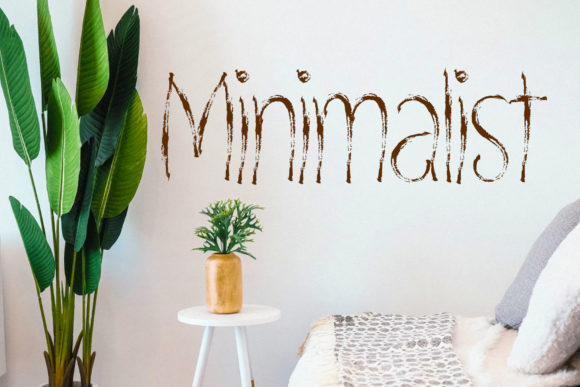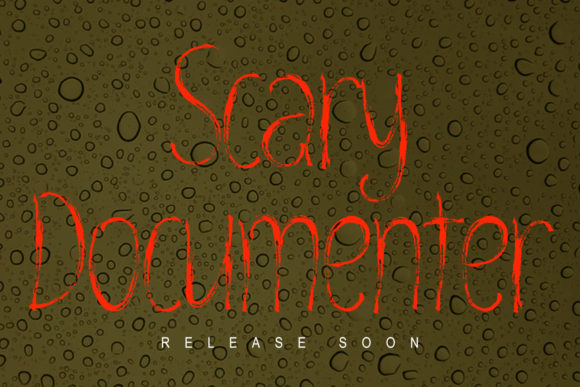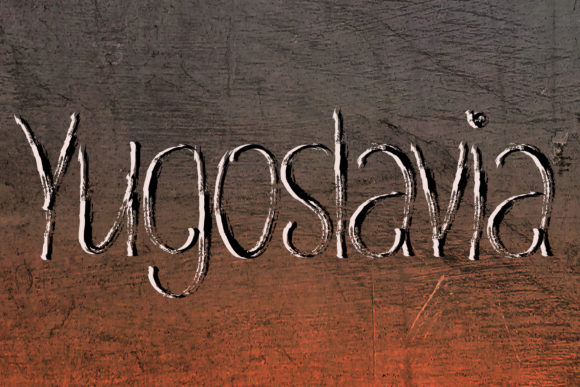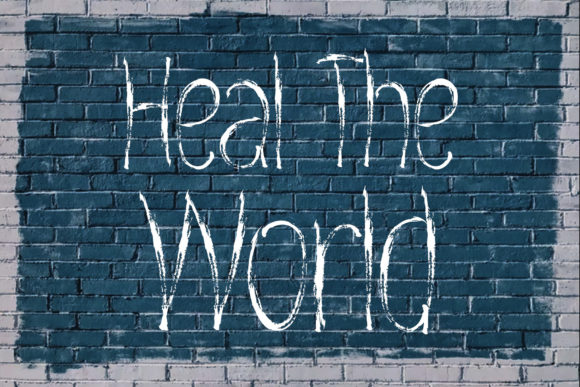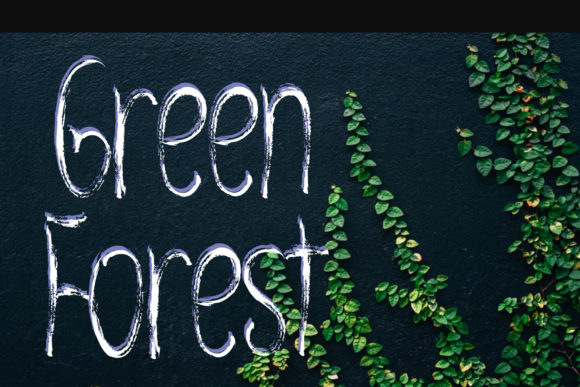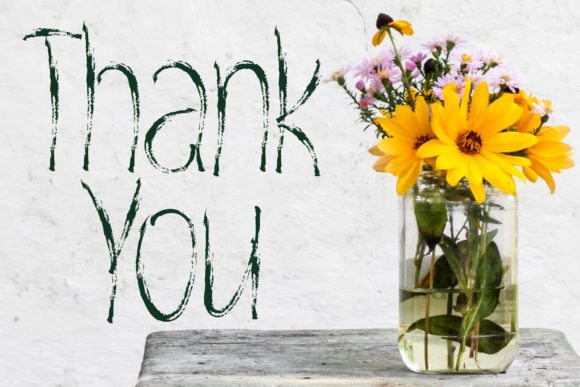
Procreate Brush Font
About Procreate Brush Font
Procreate Brush is a lovely, dainty handwritten font, perfect for your most creative projects! Use it on wedding invitations, thank you cards, quotes, greeting cards, logos, business cards, and any other design that needs a simple and fun touch.